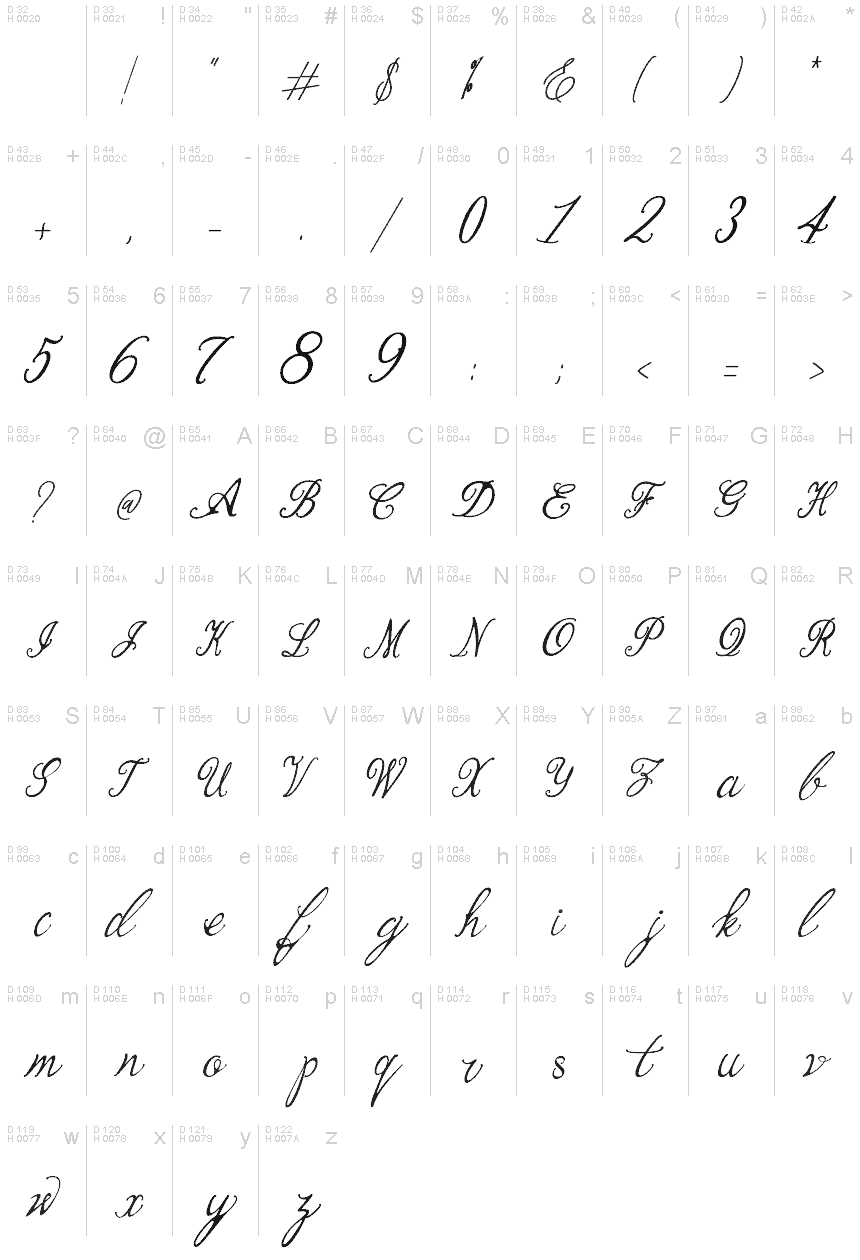
Bernadine Script Italic
Bernadine Script is a unique handwritten font with a natural caligraphylook. It can be used in a wide range of design projects and is easy to use.